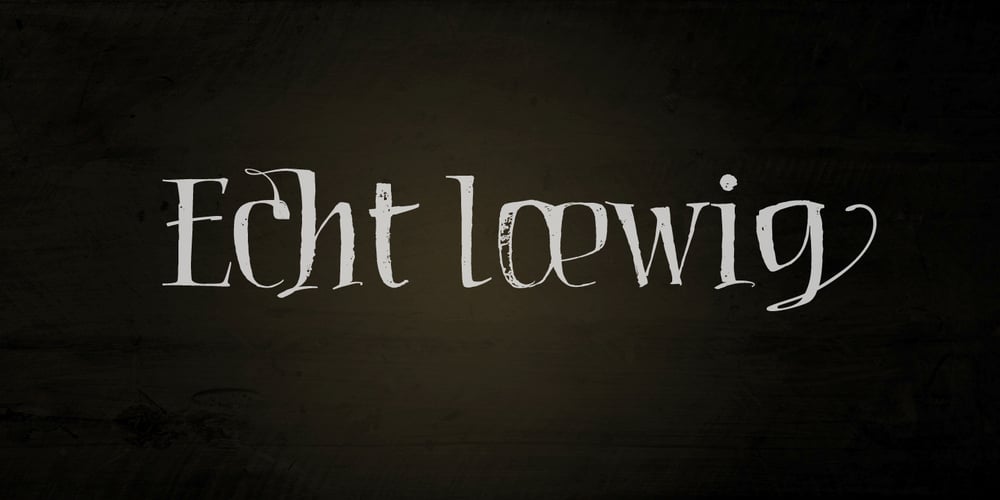
Haegtor Font Family was designed by Sebastian Wieland and published by Typemotion. Haegtor contains 1 styles and family package options. «HAEGTOR» combines a kind of lettering with a calligraphic touch. Beside the upper and lower case latin basic letters there are numerals designed, lining and also medieval, alternate letters, west european diacritics, ligatures, additional characters, lines and symbols, mathematic symbols, open type features…